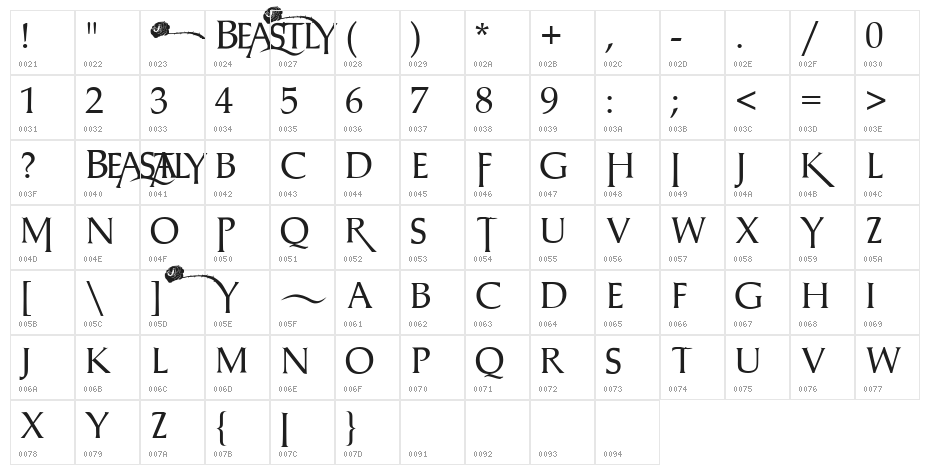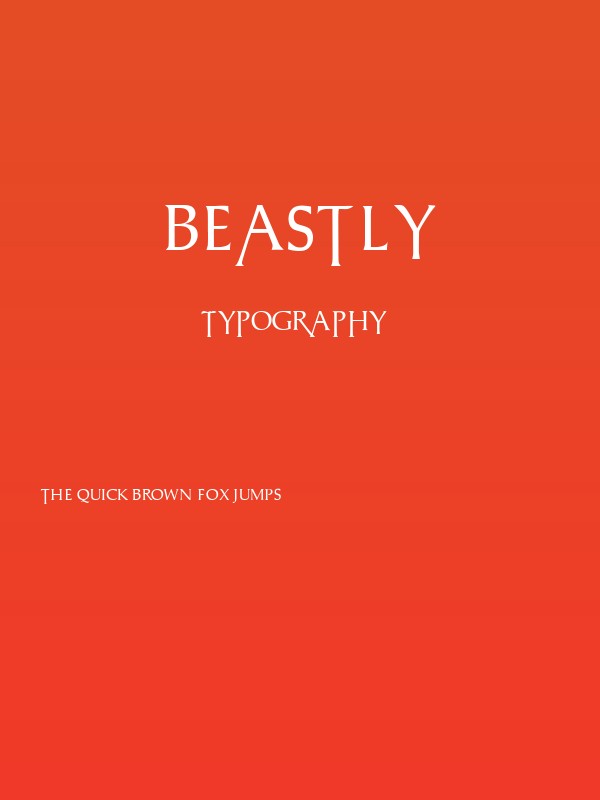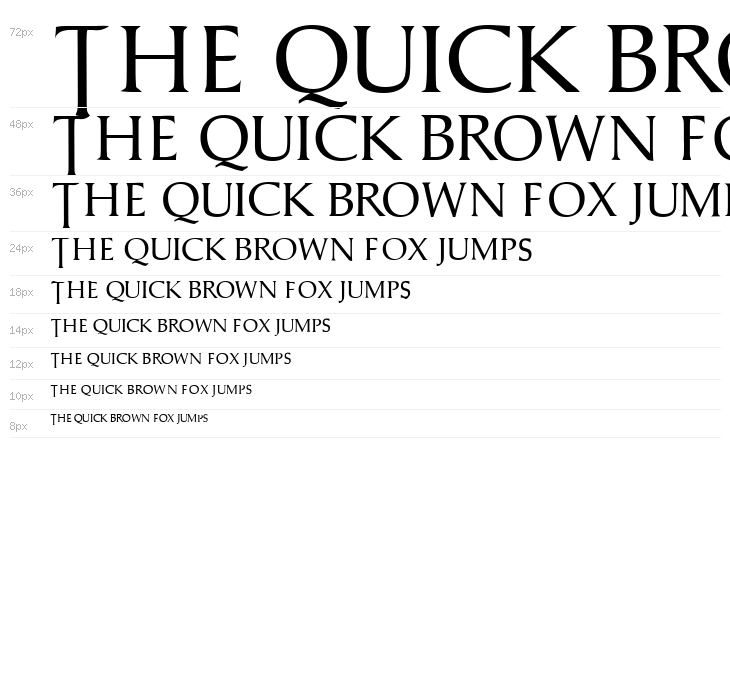
BEASTLY Font
BEASTLY Description
This font features a unique blend of classic and decorative elements, characterized by its sharp, angular serifs and slightly elongated letterforms. The uppercase letters exhibit a bold presence with distinct, pointed serifs that add a touch of elegance and drama. The lowercase letters maintain a consistent style, with a slightly more subdued appearance, yet still retaining the sharpness of the serifs. The numerals are well-proportioned, matching the overall aesthetic of the font. Special characters are intricately designed, incorporating decorative elements that enhance the font's visual appeal. This font is ideal for projects that require a touch of sophistication and flair, making it suitable for branding, headlines, and artistic designs.
| Use Case | Headlines, Logos, Artistic designs |
| Proposed Projects | Ideal for branding, headlines, artistic designs, and any project requiring a sophisticated touch. |